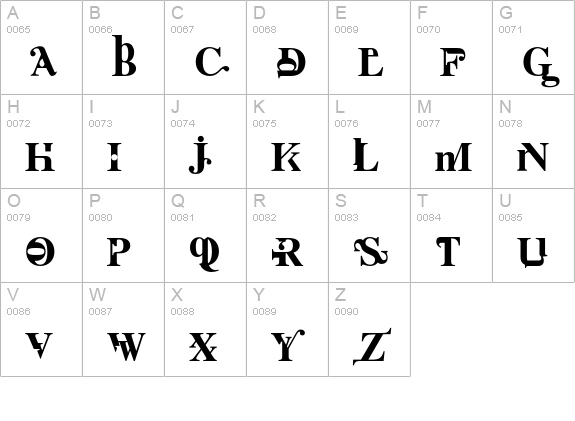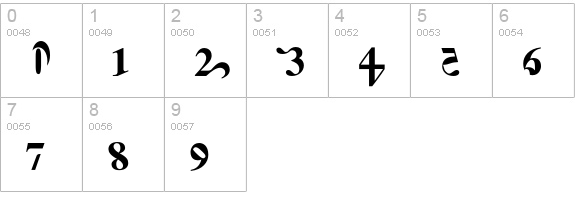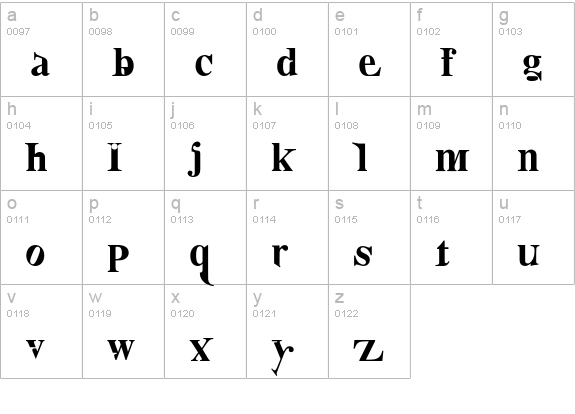
NurseRatchet Font Details
NurseRatchet font is a bold and modern typeface that exudes confidence and professionalism. Its clean lines and sharp edges make it perfect for a wide range of design projects, from medical websites to corporate branding. The versatility of NurseRatchet font allows it to be used in both headlines and body text, ensuring that your message is clear and impactful. What sets NurseRatchet font apart is its unique combination of elegance and strength, making it a standout choice for any project that demands attention. Whether you are designing a brochure, creating a logo, or crafting a social media post, NurseRatchet font will elevate your work to the next level. Best of all, NurseRatchet font is free to download at FontsMarket.com, so you can start using it in your designs right away. Don't miss out on this opportunity to enhance your projects with the stylish and sophisticated NurseRatchet font. Download it today and see the difference it can make!